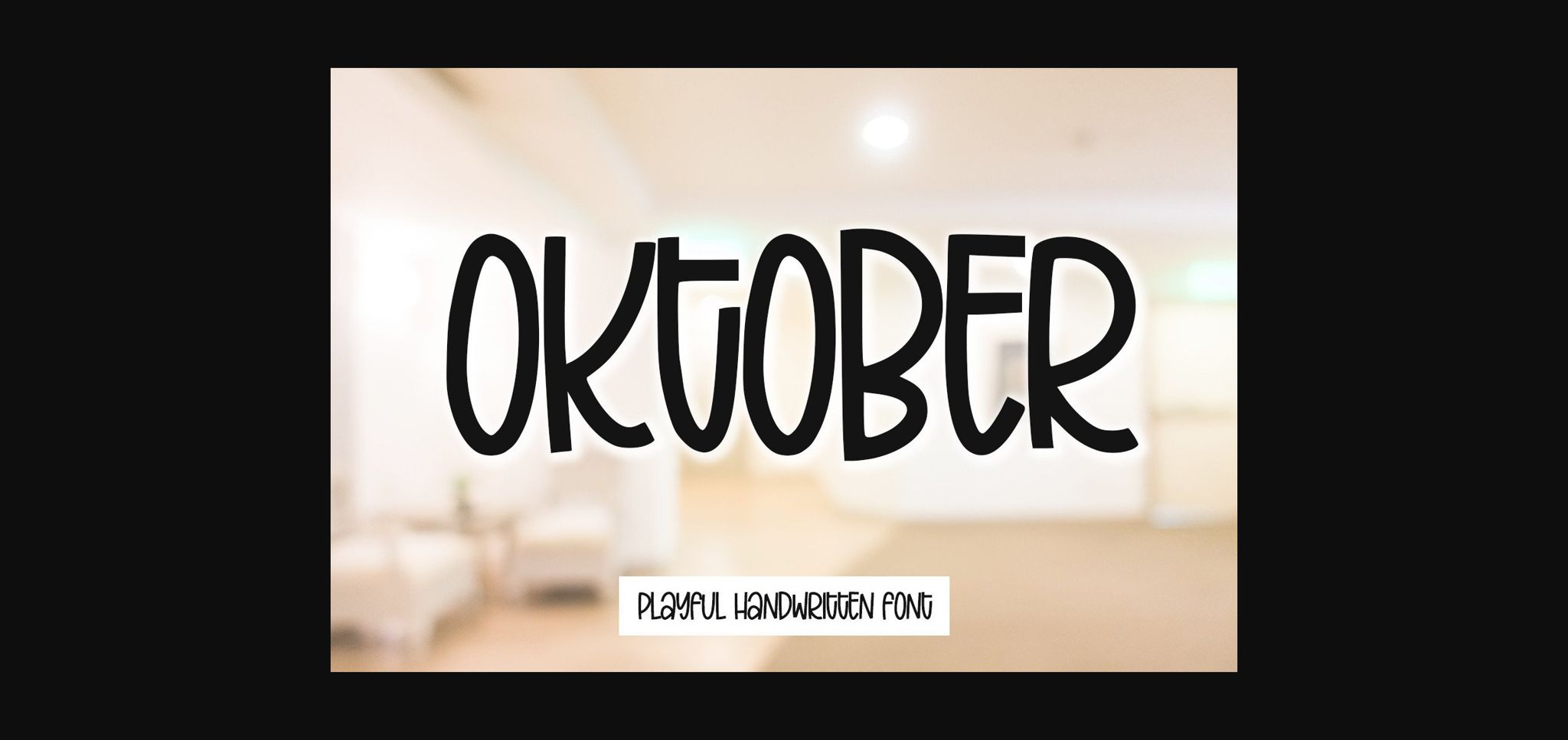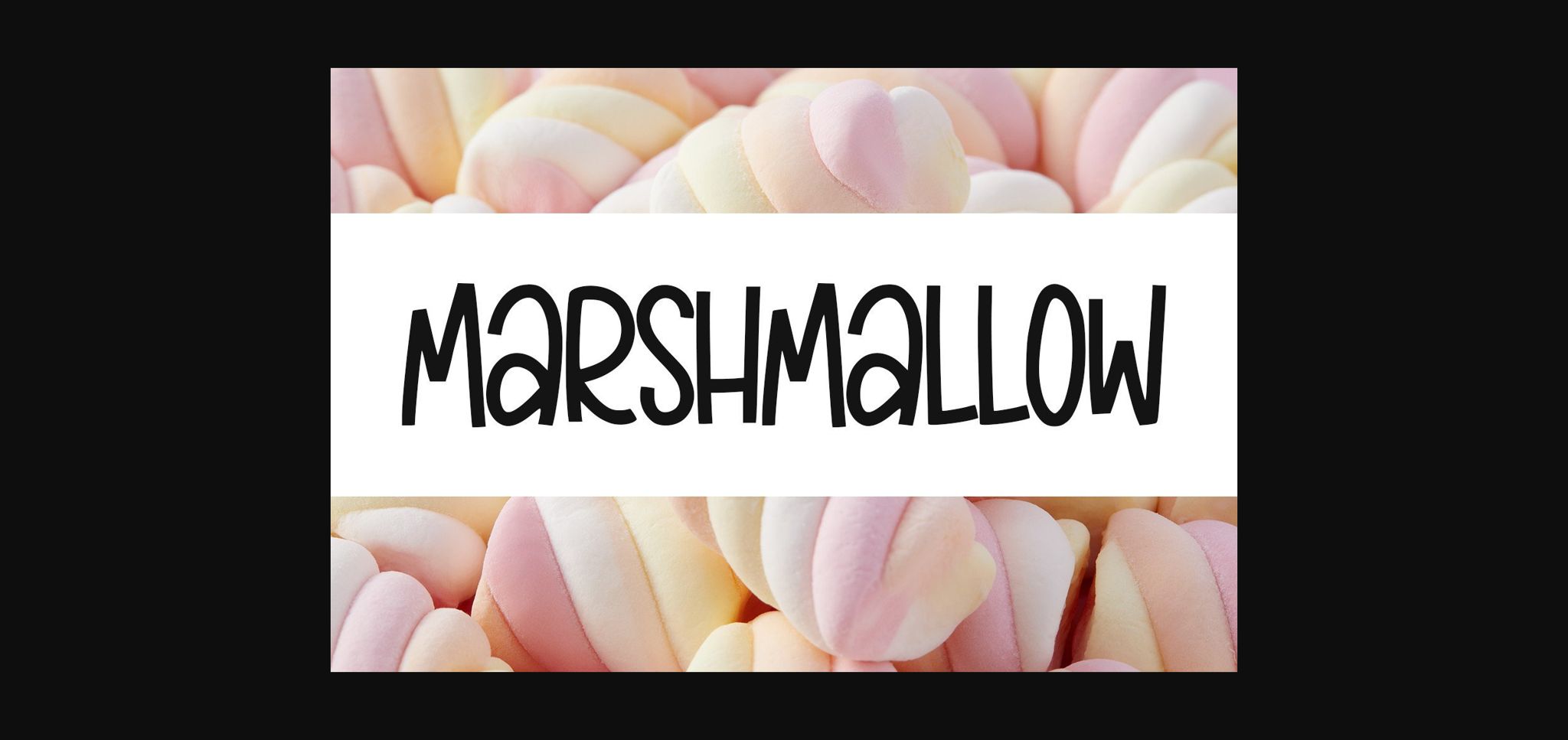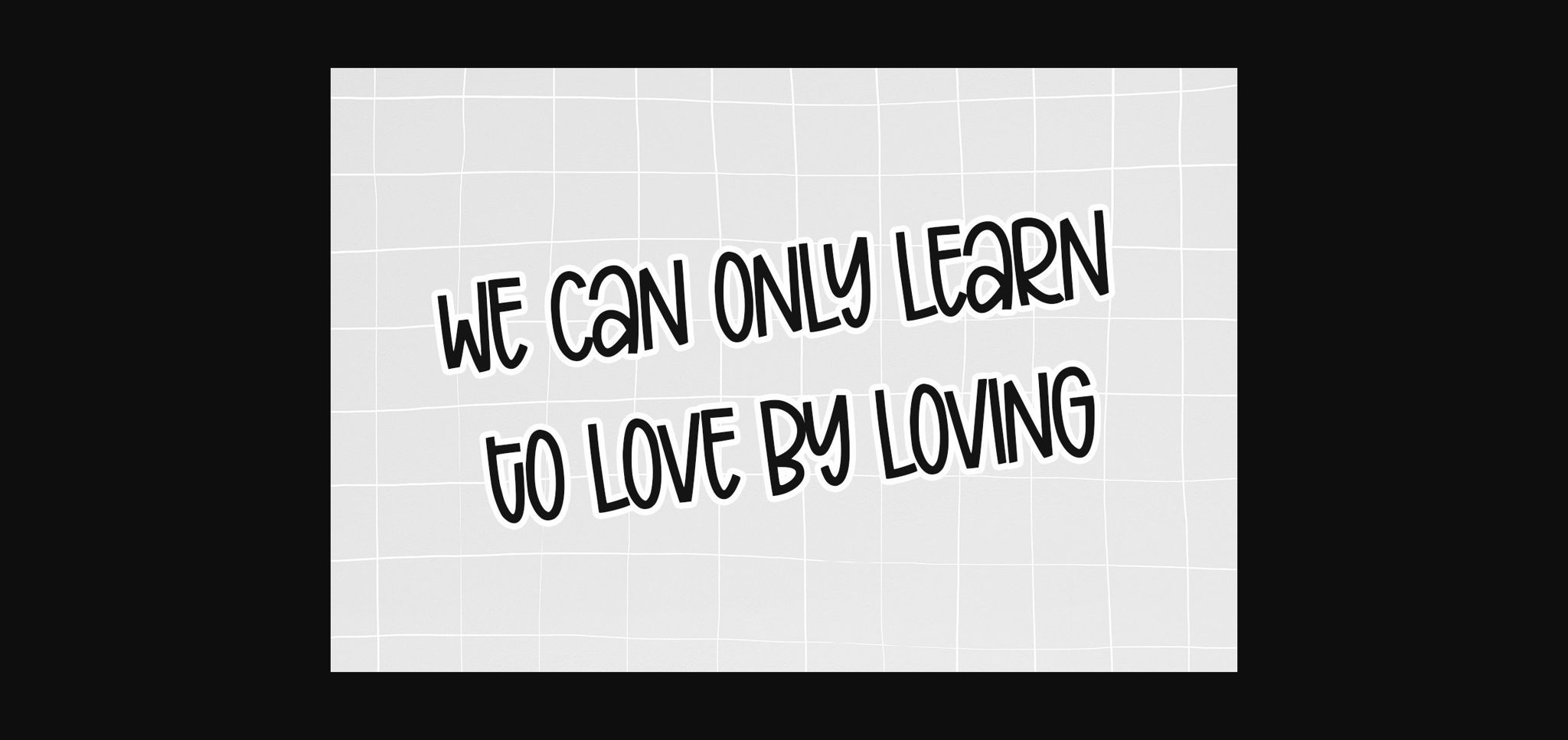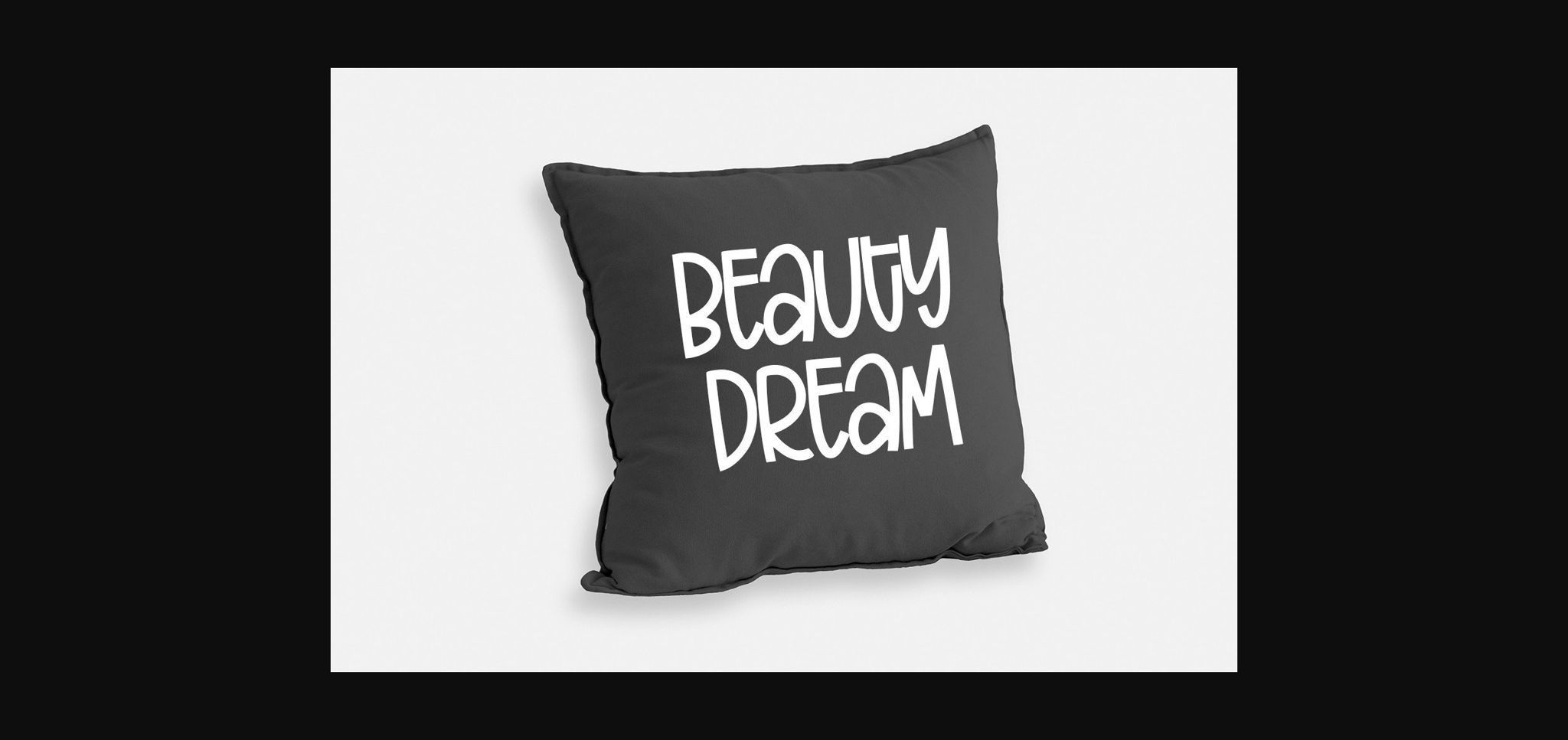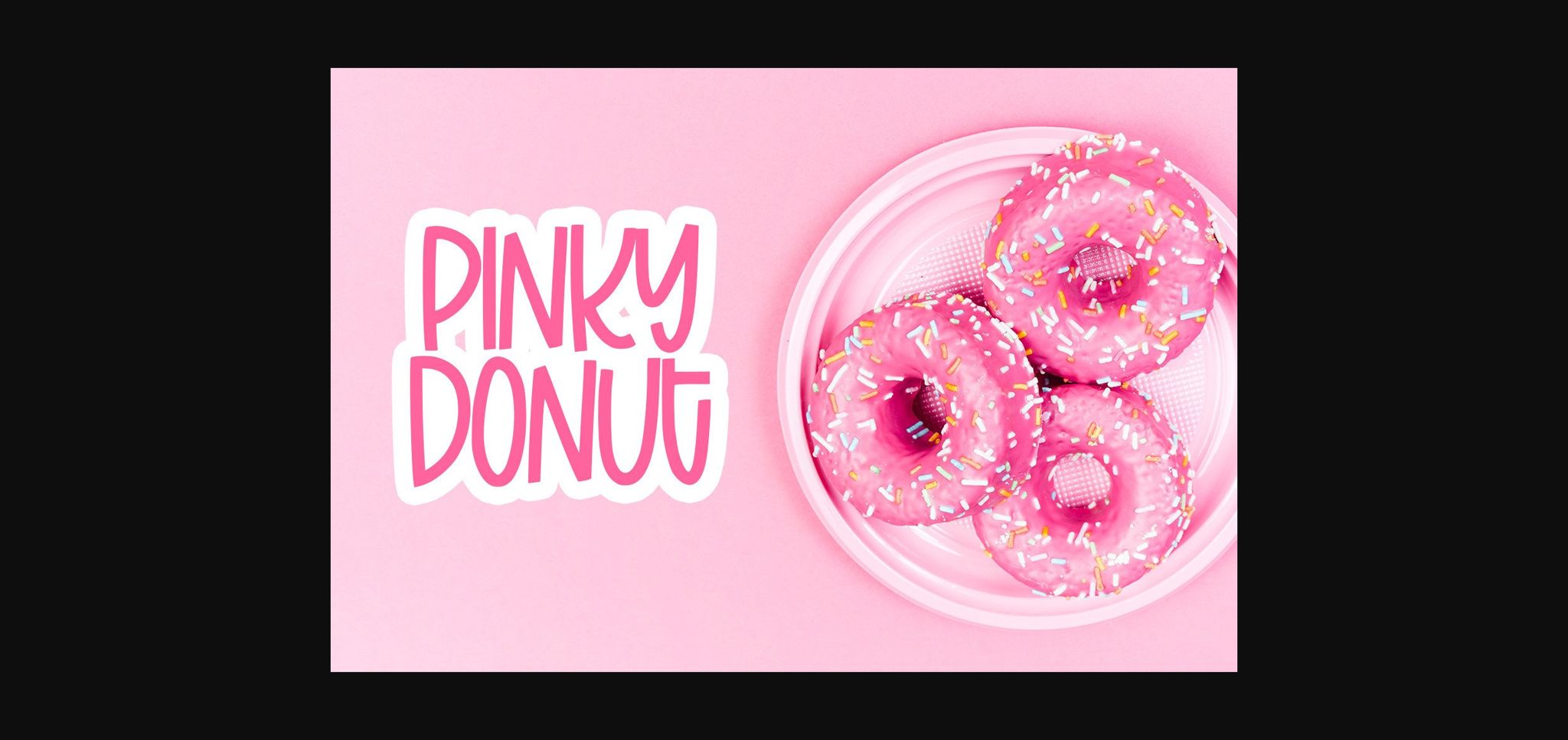
Oktober Font
Oktober– cute handwritten sans serif –
Oktober is great for t-shirt designs, logos, quotes, mugs, tote bag designs, cards, banners, social media, and any other craft projects.